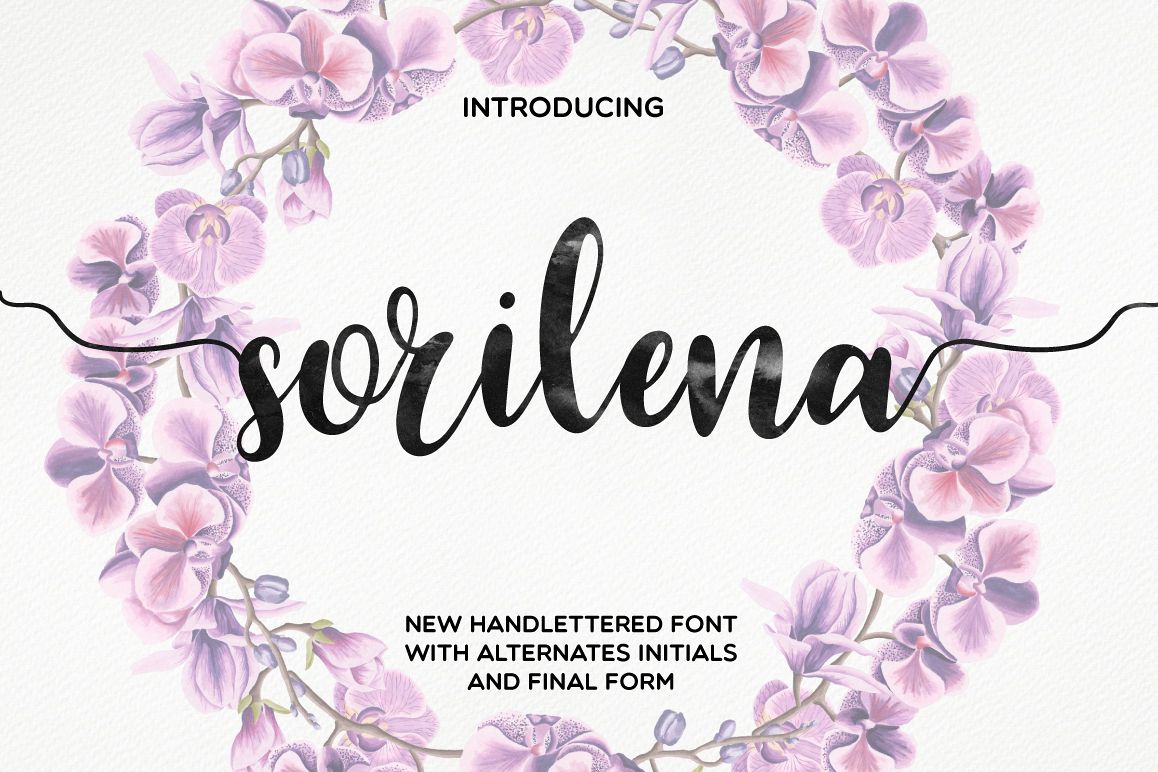
Sorilena Script
Clean and Lovely Script font. You can make your unique inscription, because the font family contains alternates initials and final form. Lovely fonts would be perfect to combine in your design. This fonts are perfect for your blog or postcard for wedding. Also with their help, you can create a logo or beautiful frame for your home. Or just use for your small business, book covers, stationery, marketing, magazines.